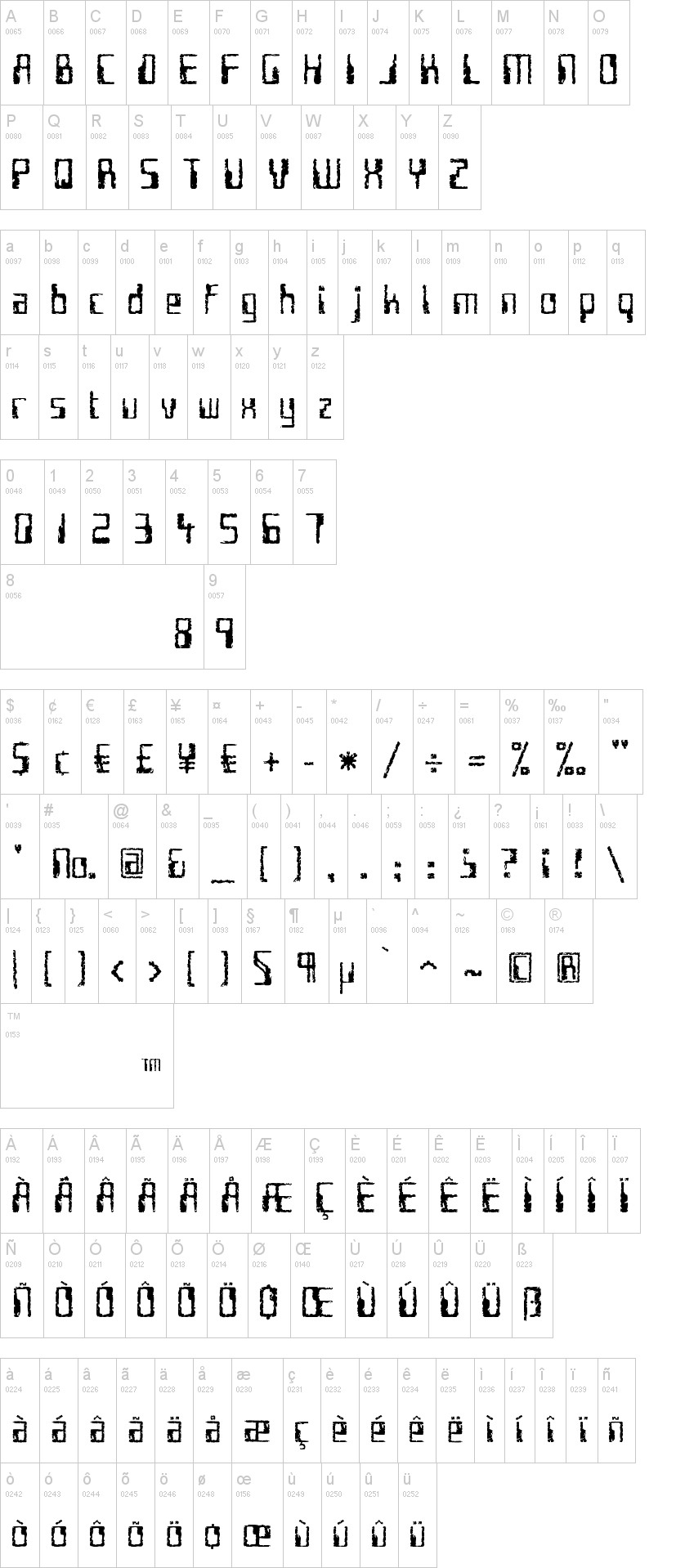
Note of the authorDistressed version of computer-readable text. In 1975 Future Imperfect was submitted to and rejected by Letraset. I wish Id kept the rejection slip.